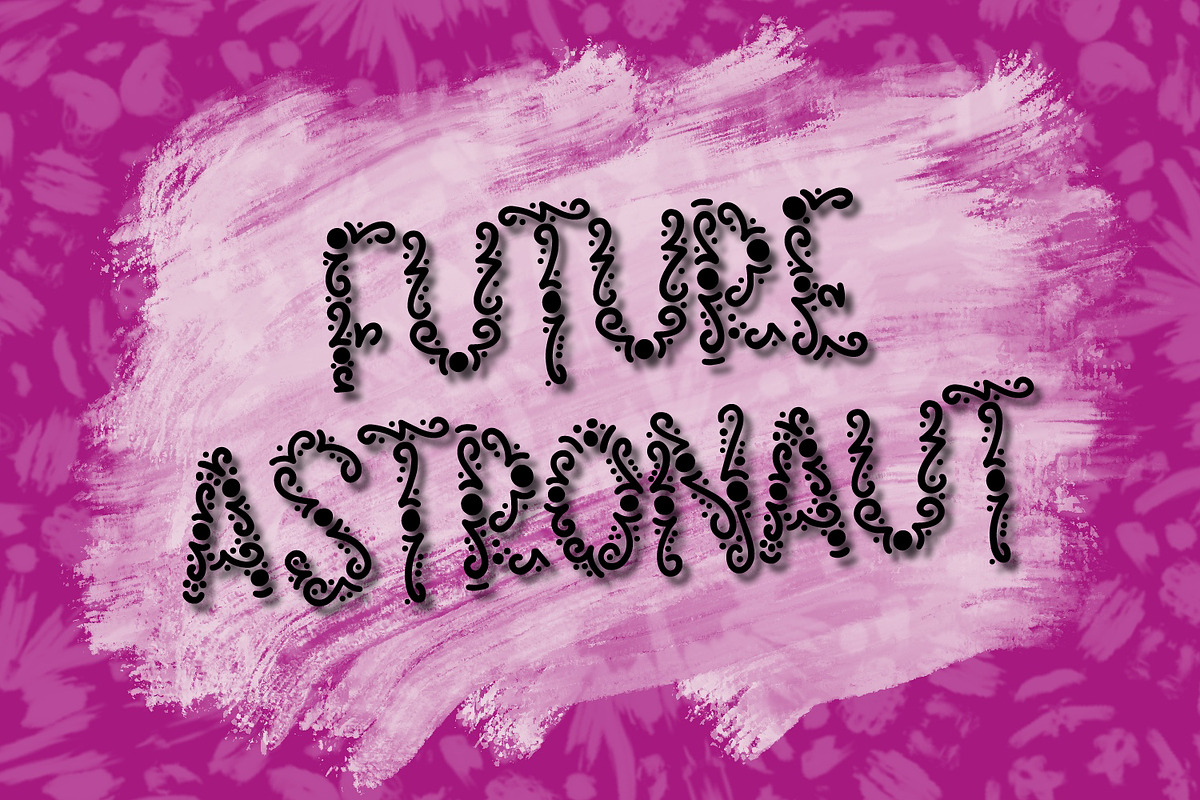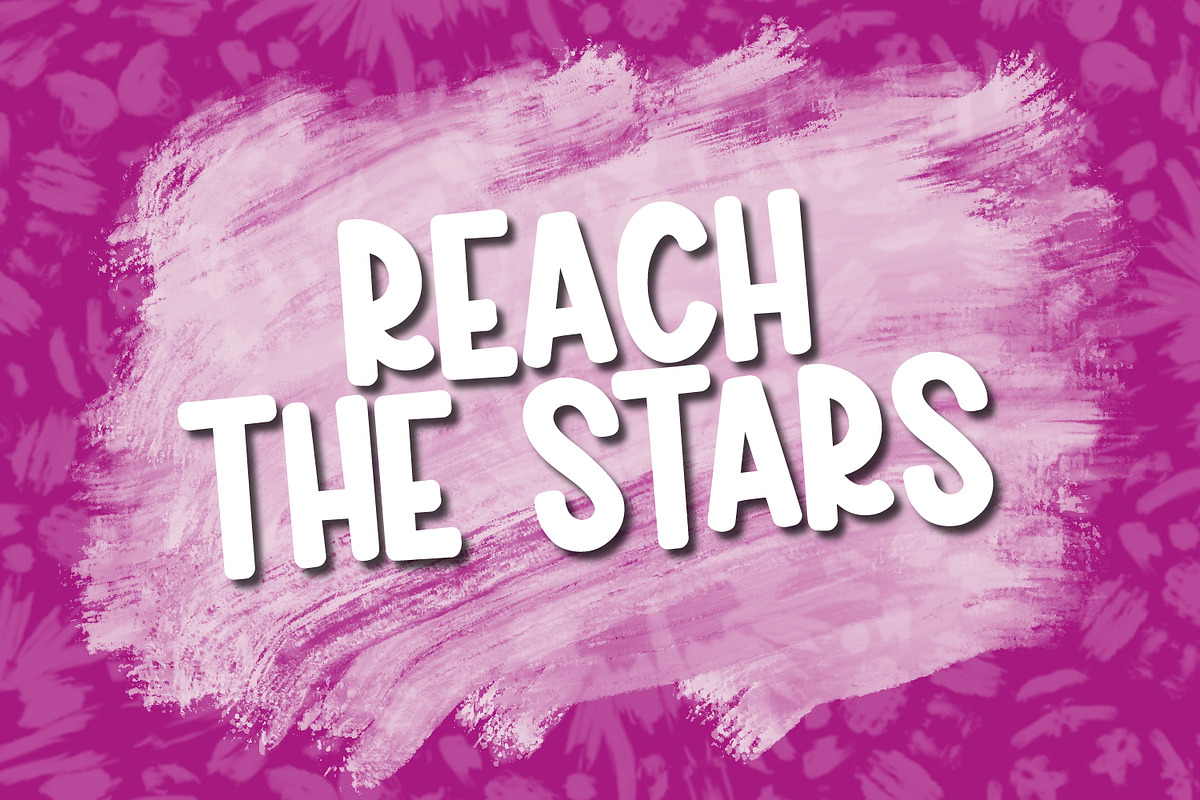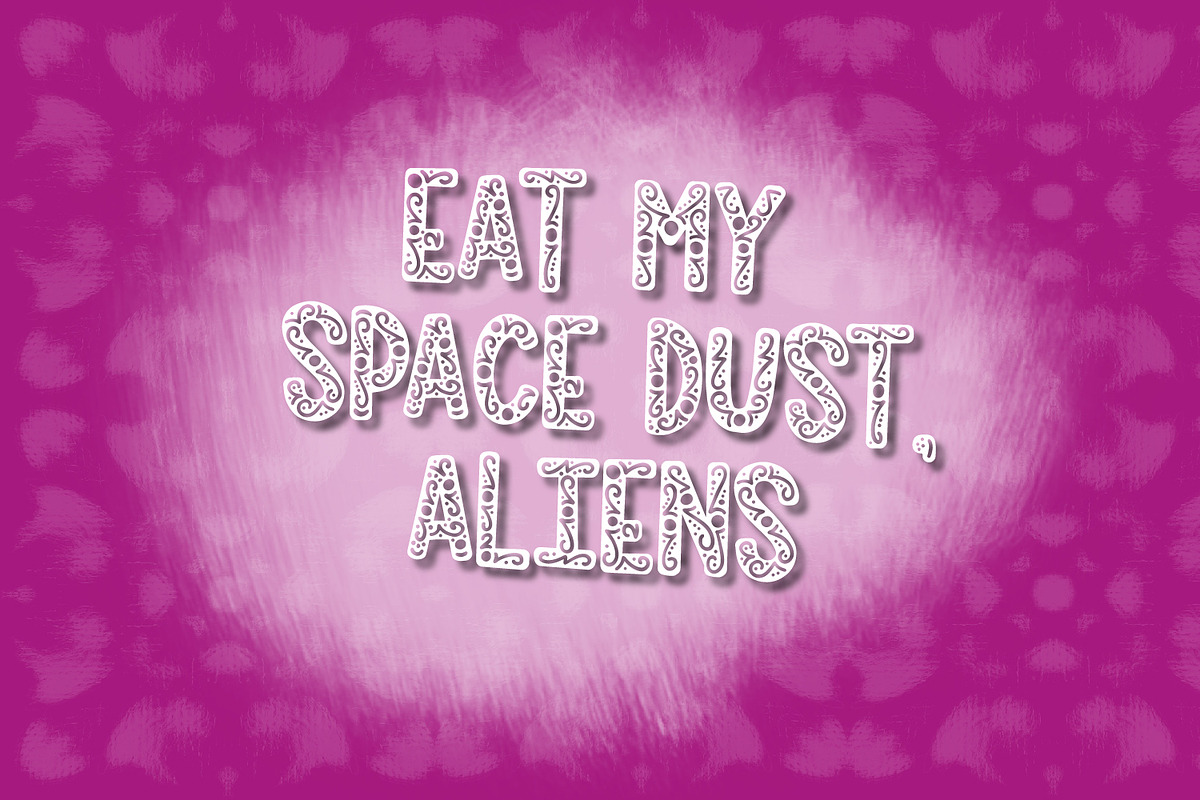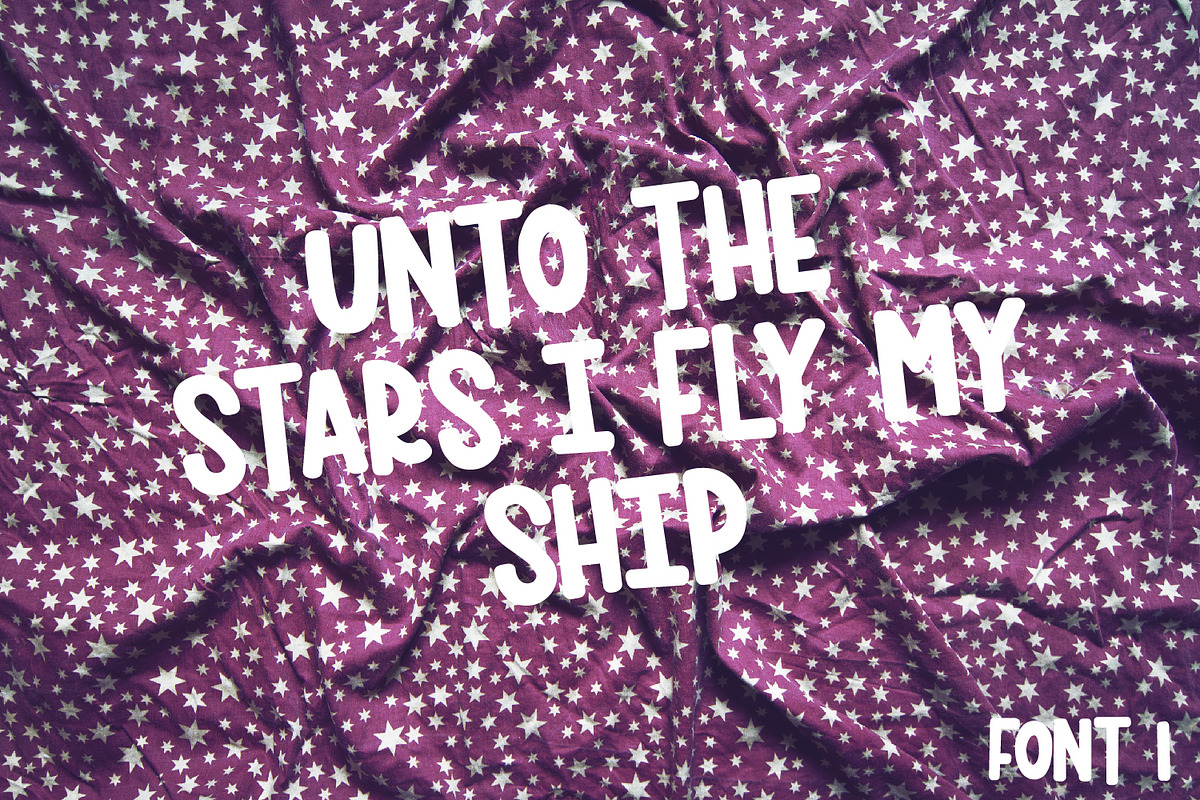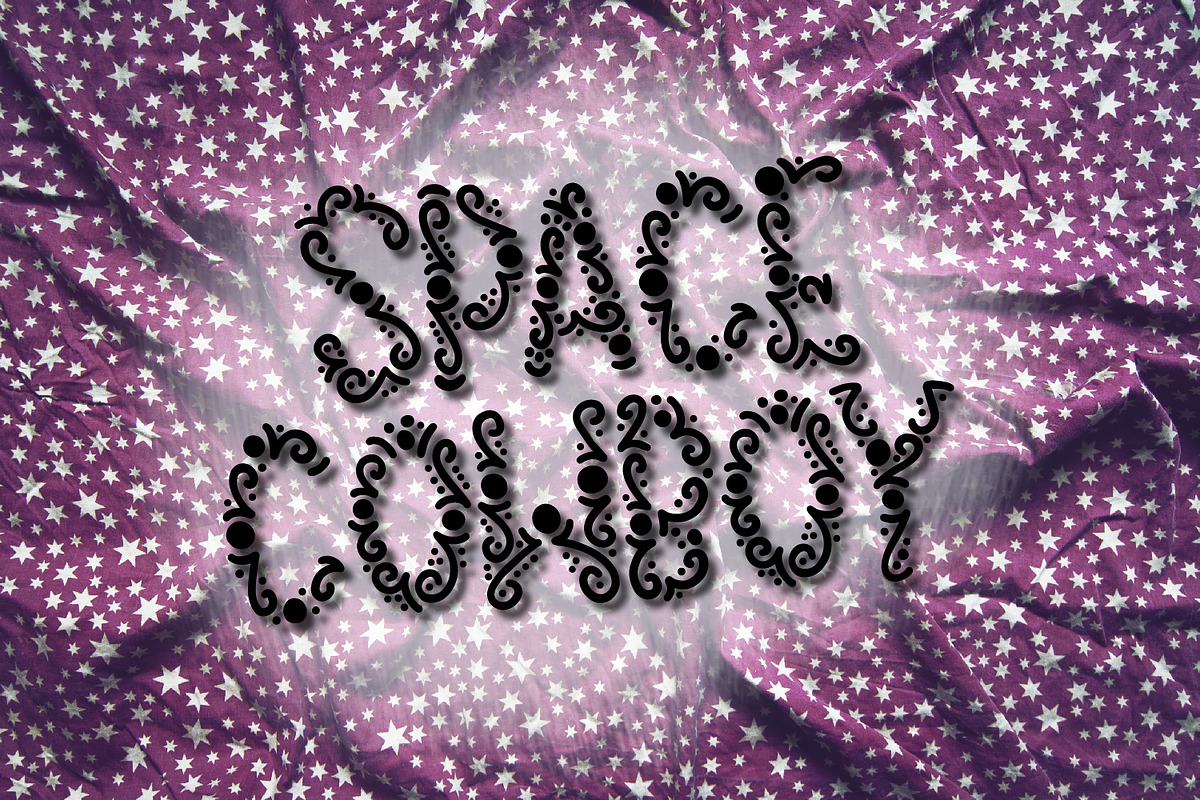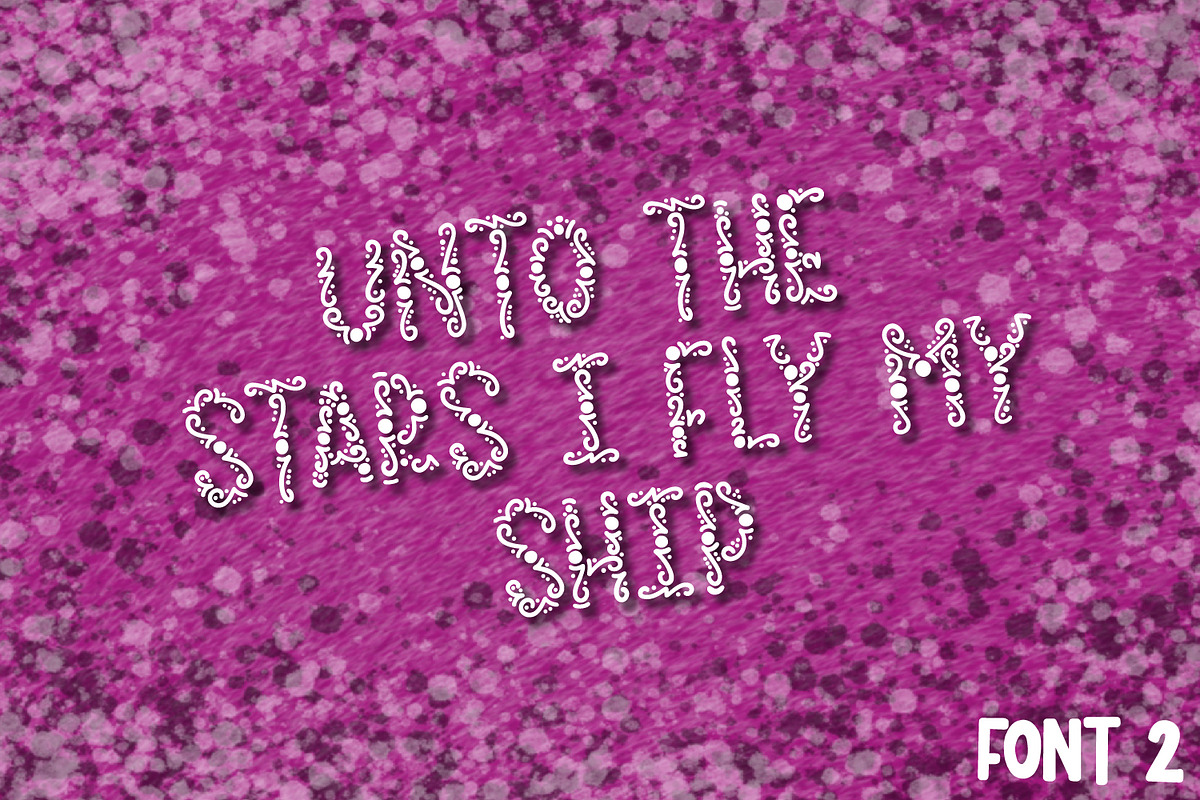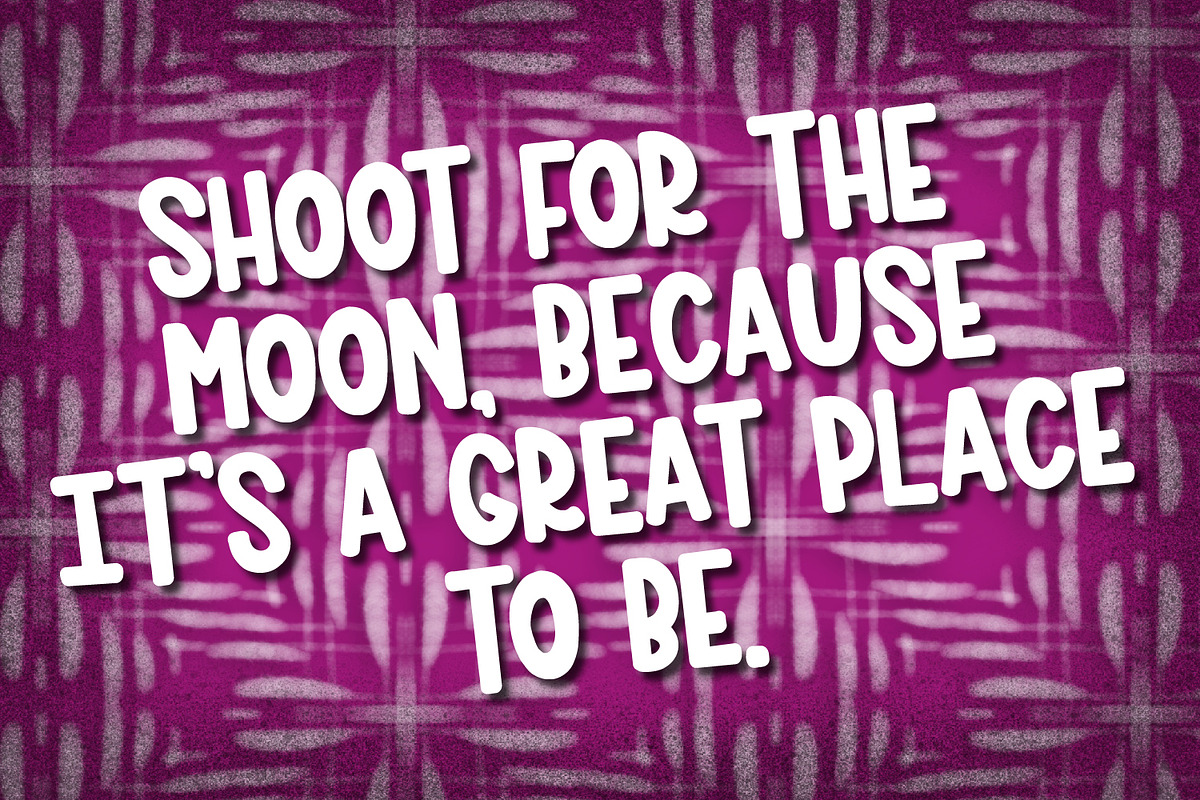
MOONSOUP - A Galactic Font Trio
Why MOONSOUP - A Galactic Font Trio is worth a look
MOONSOUP - A Galactic Font Trio by CraftyLittleNodes fits naturally into Branding, posters, packaging, typography.